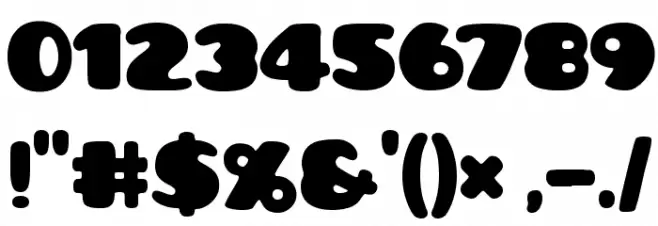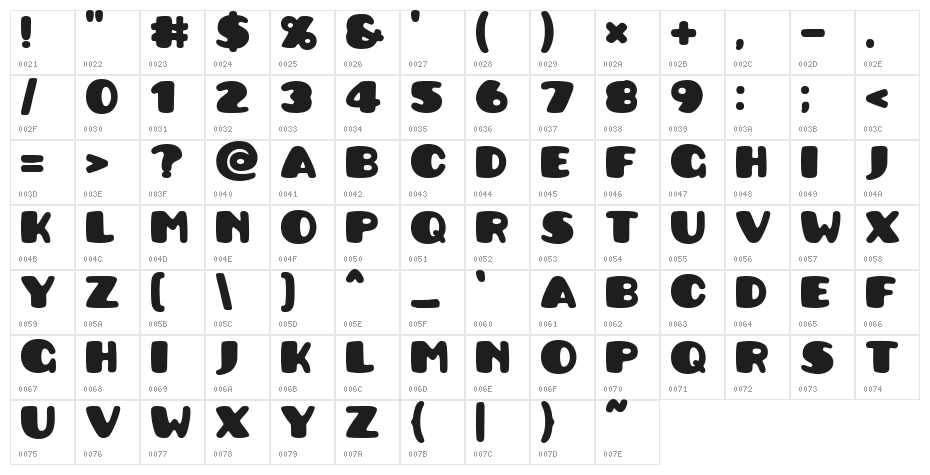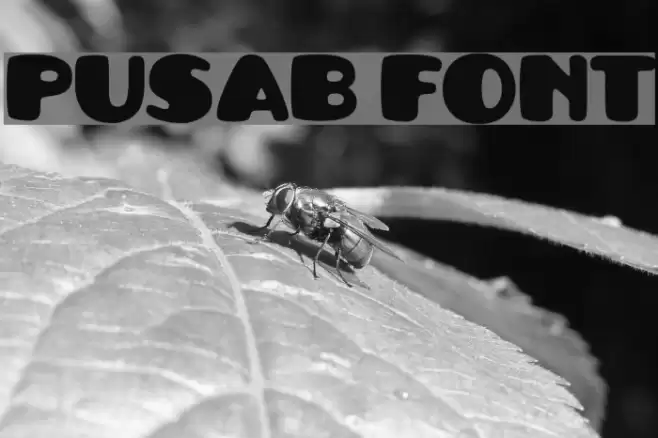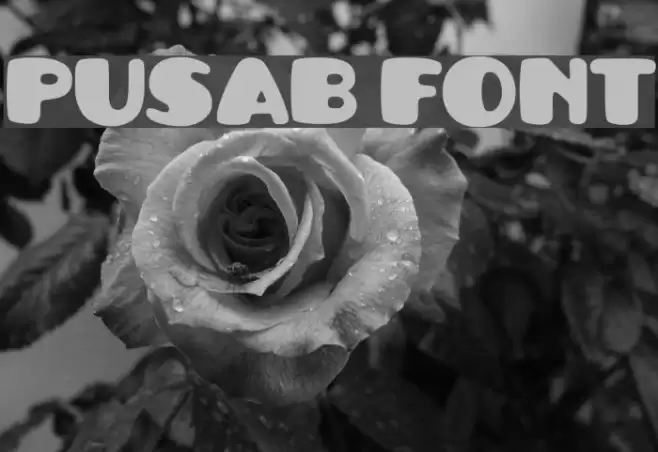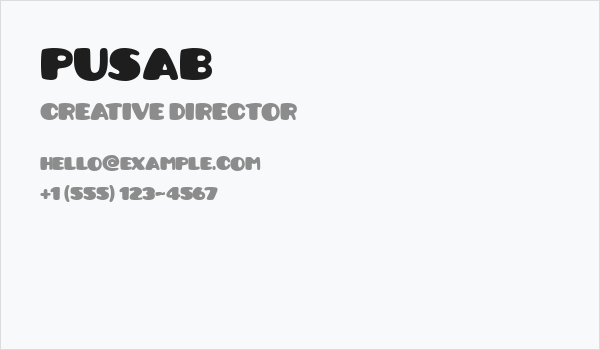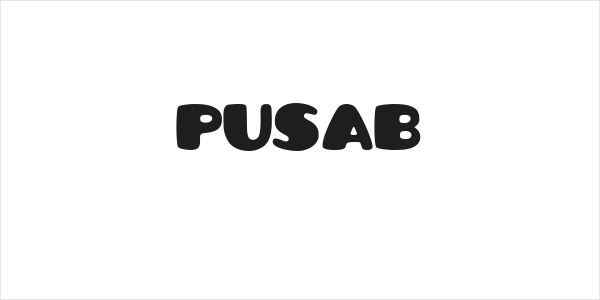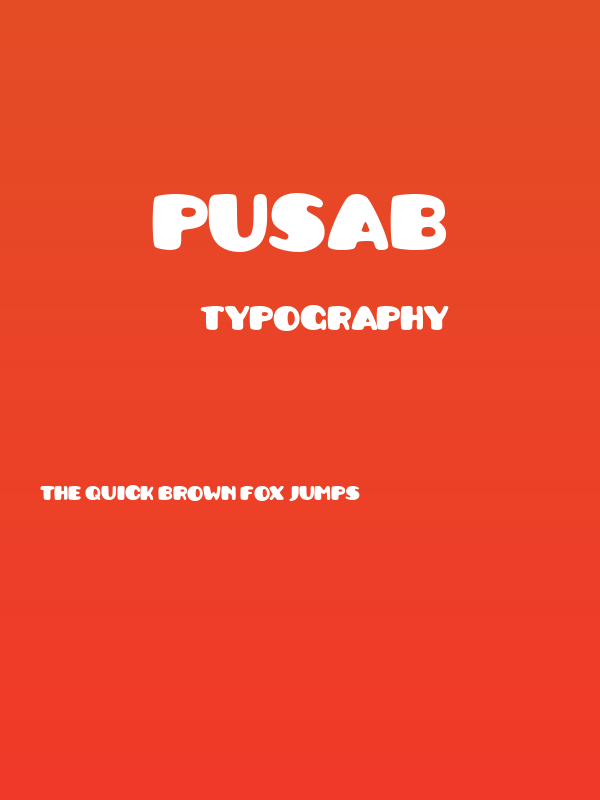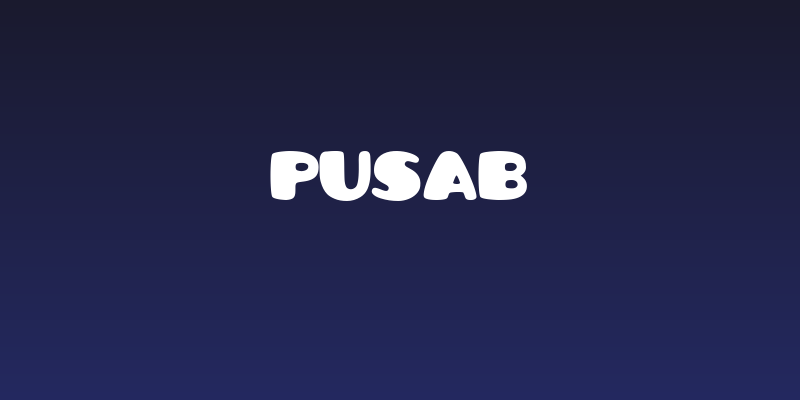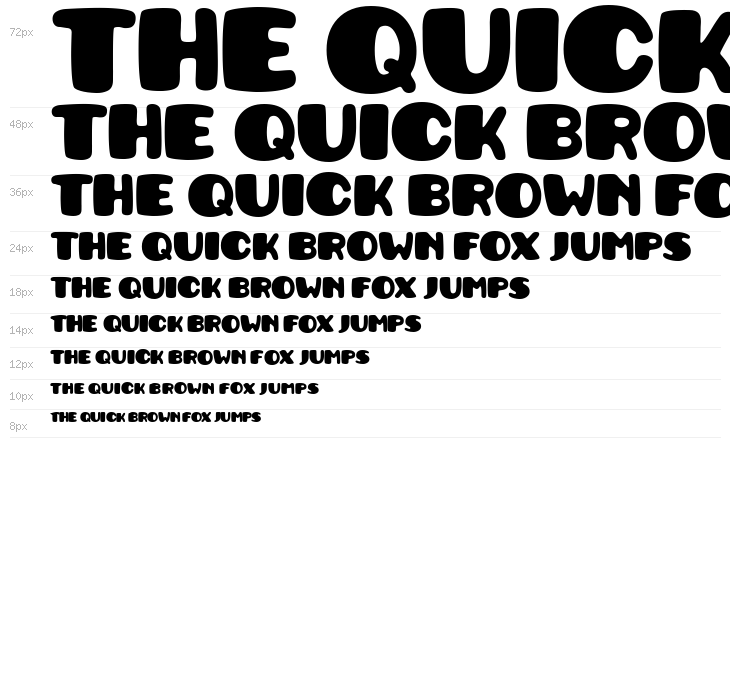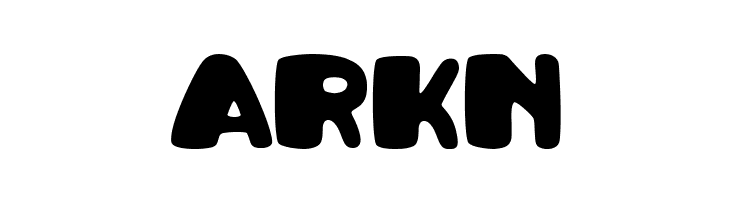
Pusab Font
Pusab Description
This font features a bold and playful design with rounded, bubble-like characters. The letters are thick and have a consistent stroke width, giving them a strong presence. The style is reminiscent of retro or vintage designs, often used to convey a sense of fun and creativity. The characters are evenly spaced, providing a balanced and cohesive look. This font is particularly suitable for projects that require a bold statement or a playful touch, such as children's books, posters, or branding for creative products.
| Overall Style | Playful, Retro, Fun |
| Proposed Projects | Ideal for children's books, playful posters, creative branding, and retro-themed designs. |